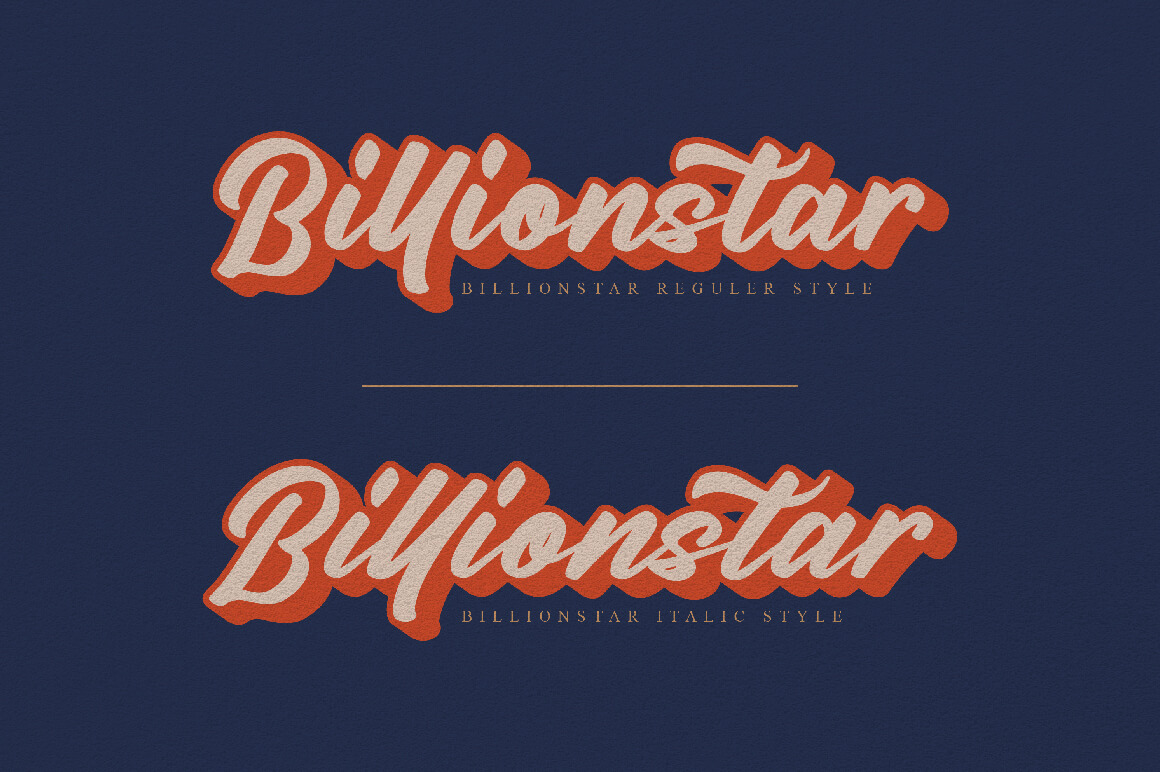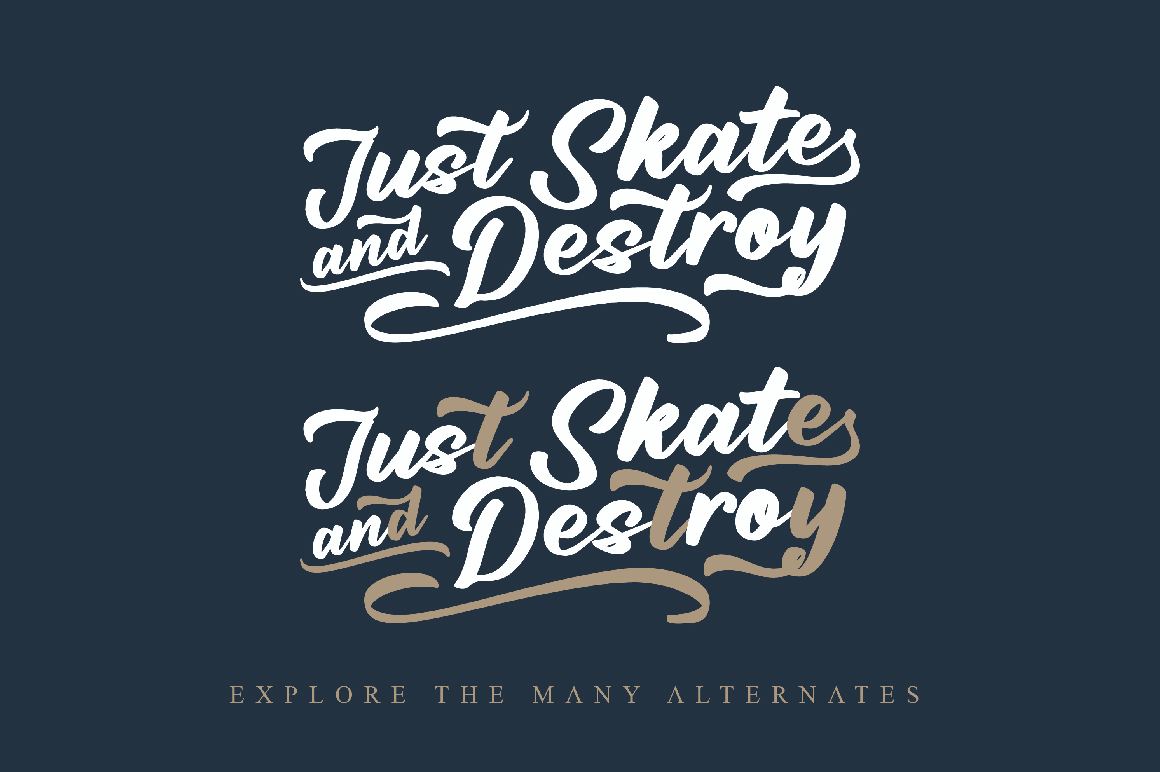
Billionstar Script 字体介绍
It’s a stylish a modern script font with 2 styles : Reguler, Italic and includes full set of uppercase and lowercase letters, multilingual symbols, numerals, punctuation, alternates, swash and ligatures.
The font is perfect for branding, wedding invites and cards, christmas card, branding, logos, product packaging, invitation, qoutes, t-shirt, label poster this is perfect for branding, logos, invitation and more.
Billionstar Features :
– Multilanguange
– Ligatures
– Alternates
– Swash